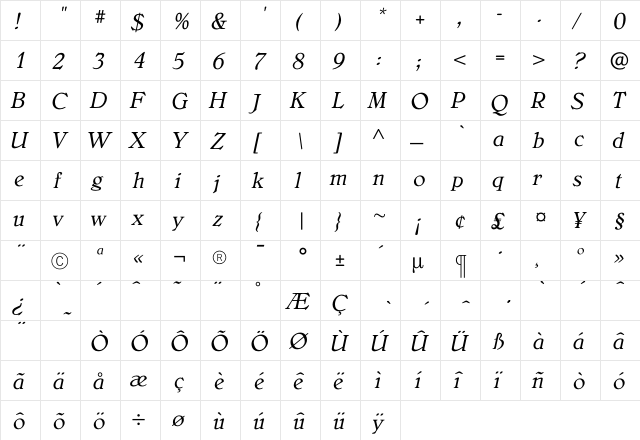
BelliniOriginalItalic Regular
Design Context for BelliniOriginalItalic Typeface
BelliniOriginalItalic offers clean, dependable letterforms without strong stylistic allegiance, making it a practical choice for designers who need flexibility. Its italic angle brings a sense of urgency and motion to the letterforms.
Pro Tip: Try BelliniOriginalItalic for annotation and caption copy alongside an upright companion — the contrast in angle creates a dynamic but ordered typographic system.